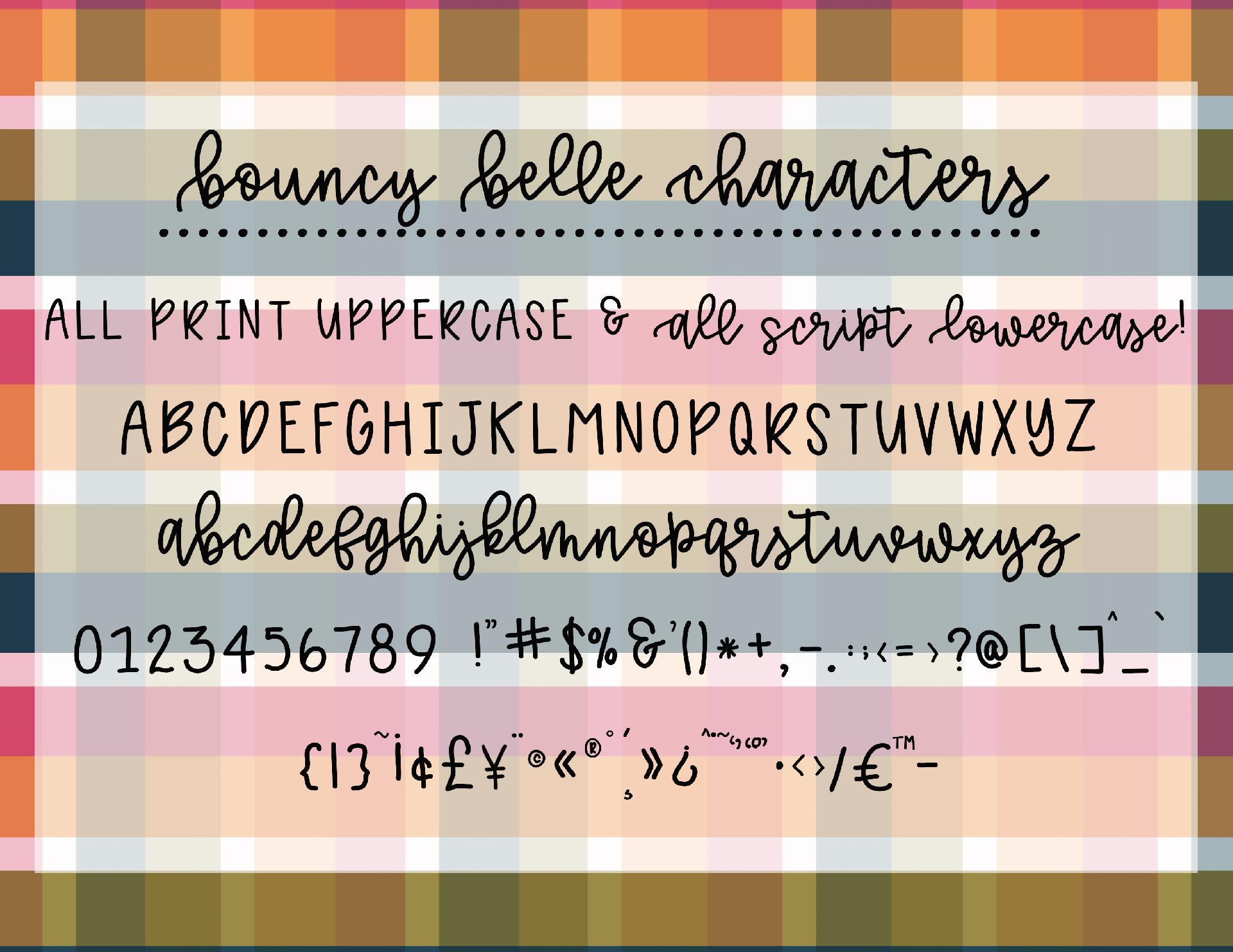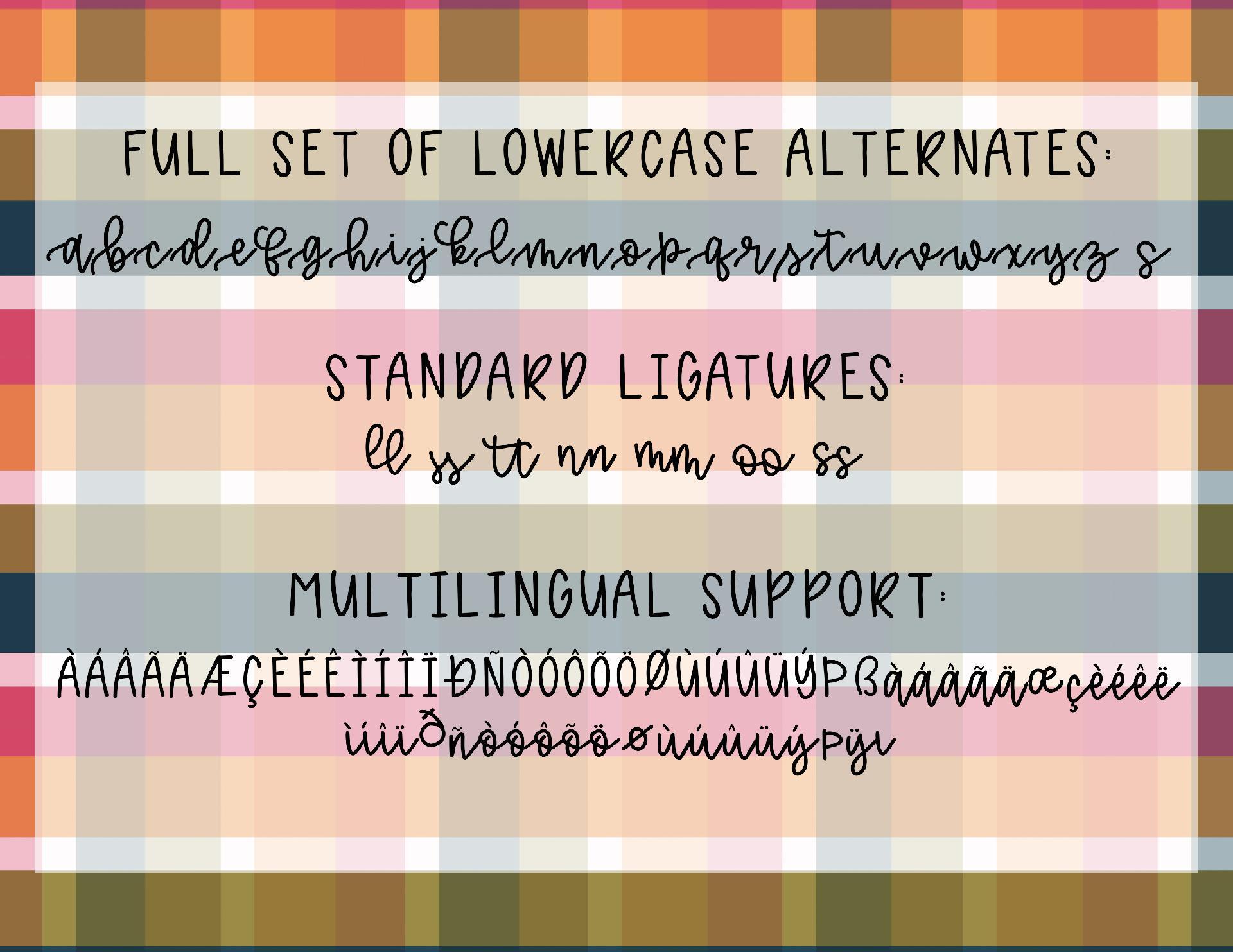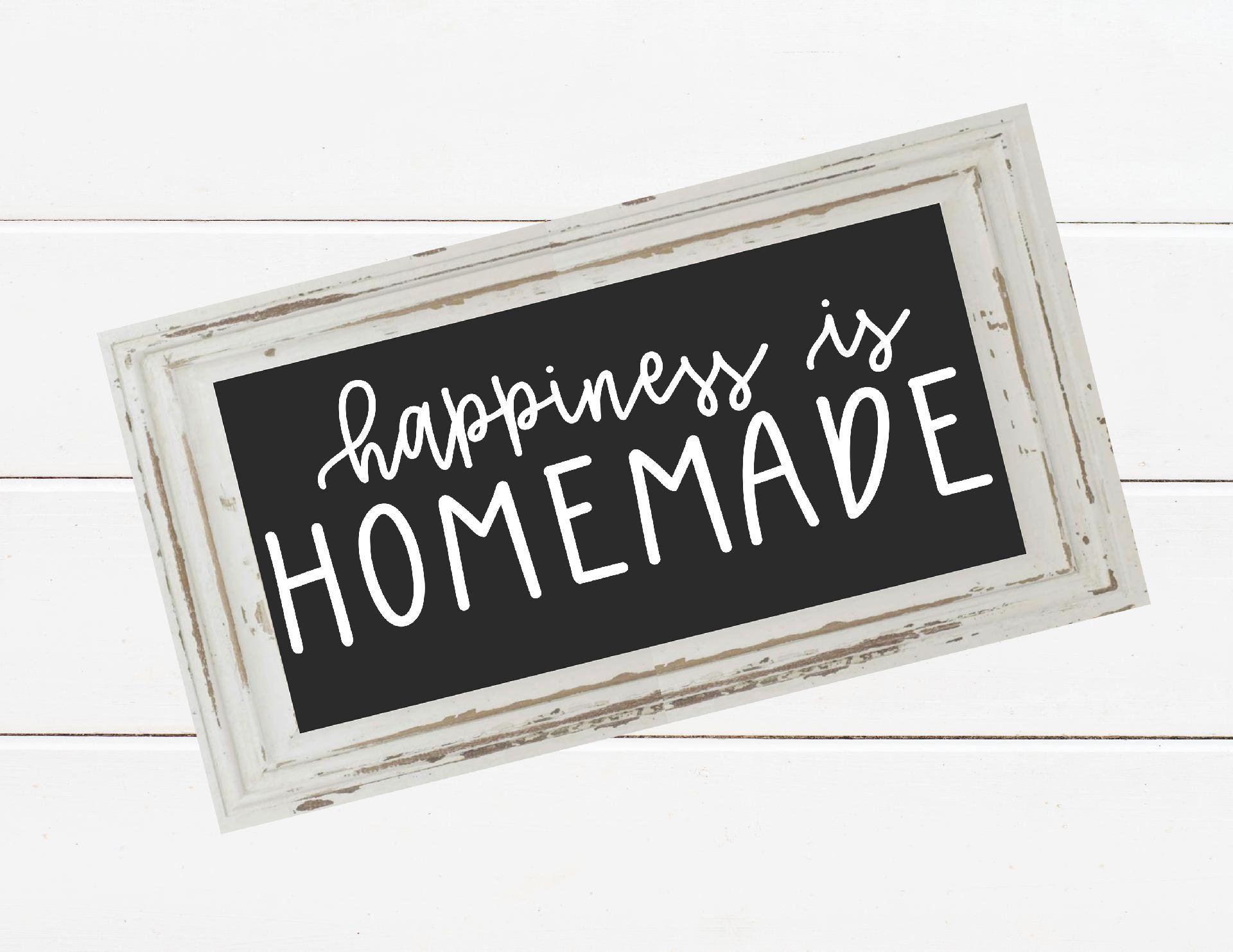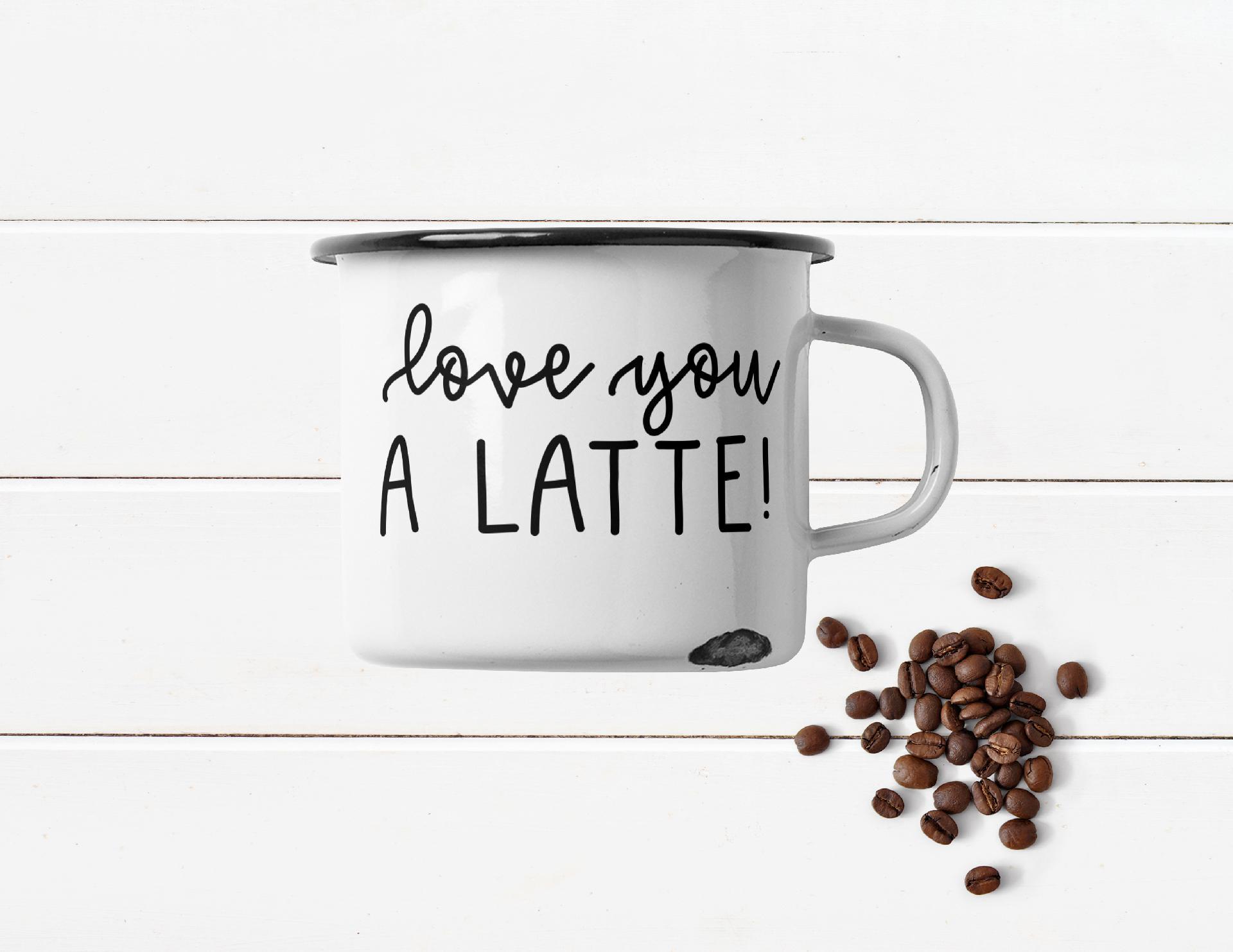
About bouncy belle font
bouncy belle – a hand lettered font bouncy belle is a font duo featuring 2 styles in one font – an all print uppercase with an all script lowercase. Add unique style to your designs with the full set of alternates for the lowercase characters! Here’s what you get with bouncy belle: All print uppercase All script lowercase Full set of script lowercase alternates Number, symbols & punctuation Standard ligatures Multilingual support PUA encoded making this a cut-friendly font